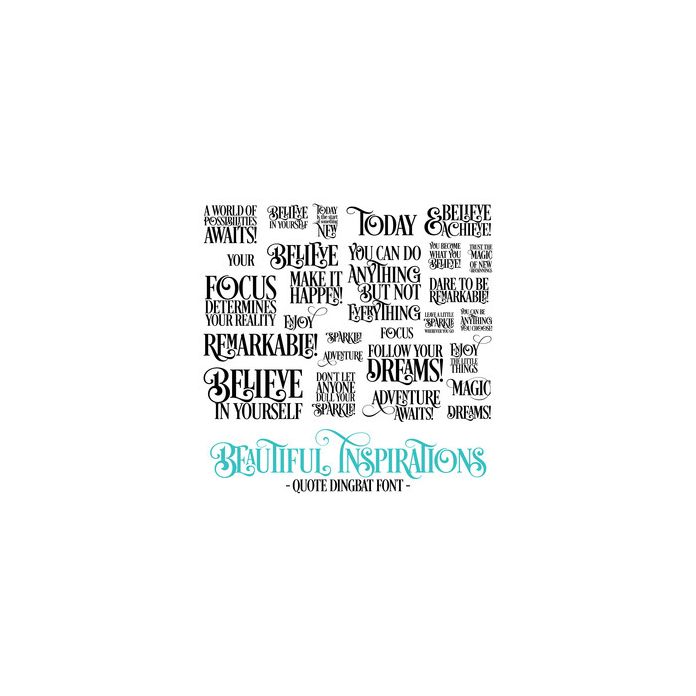
Beautiful Inspirations Font - Inspirational Word & Quote Dingbat Font. Includes 26 beautiful inspirational words and quotes, perfect for planners, wall art, word art, vinyl, bible and faith journaling, scrapbooking, gifts and more!. All are assigned to an upper case letter starting with 'A' or can be accessed via glyphs. For more design ideas, coordinating designs & products and inspiration, please visit my blog http://www.sarahhurleyblog.com